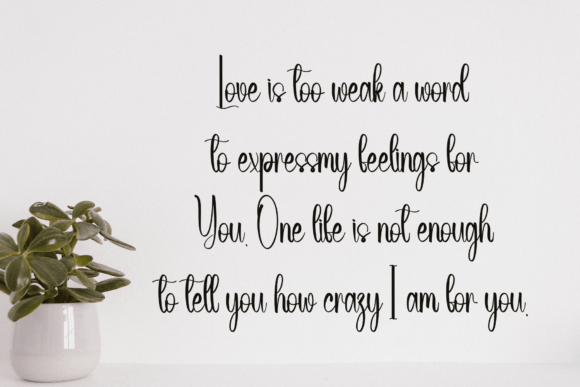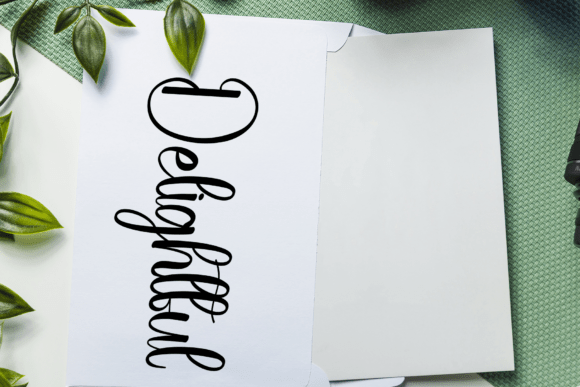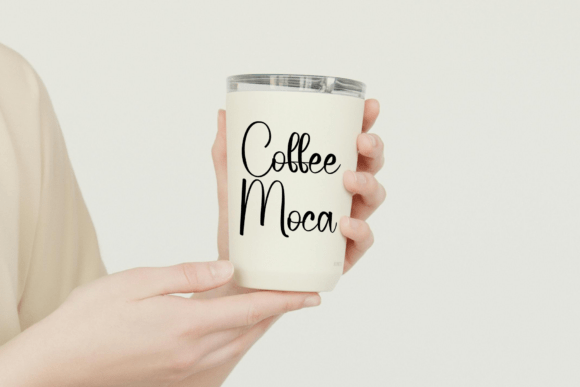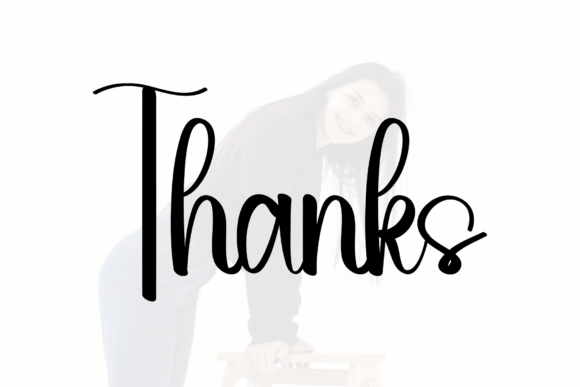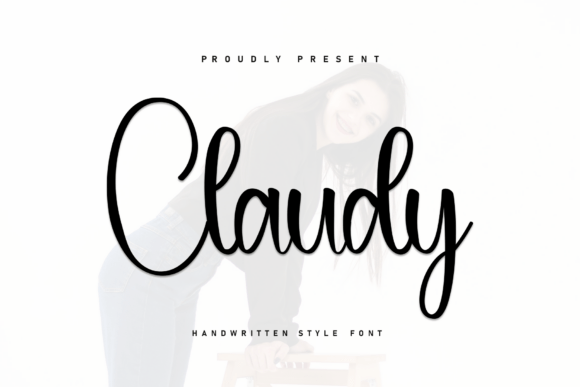
Introducing Claudy Font: The Epitome of Elegance and Sophistication
In the world of typography, few fonts manage to strike a balance between elegance and approachability. Claudy Font, however, is a remarkable exception. This sophisticated and highly fluid handwritten script embodies effortless elegance, making it an ideal choice for designers and crafters looking to add a touch of luxury to their creative projects.
The Characteristics of Claudy Font
Claudy is defined by its tall, sweeping ascenders and a delicate, fine-point pen aesthetic. This unique combination gives the font its distinctive look and feel, setting it apart from more traditional typefaces. The elongated character height and smooth, rhythmic flow of Claudy contribute to its refined and handcrafted feel, making it perfect for applications where a sense of high-end quality is desired.
Ideal Applications for Claudy Font
Given its exceptional design and aesthetic appeal, Claudy Font is particularly well-suited for a variety of applications. Some of the most notable uses include:
- Boutique Branding: For businesses that aim to convey a sense of exclusivity and high-end quality, Claudy offers a typographic solution that is both sophisticated and memorable.
- High-End Fashion Editorial Headers: The font’s elegant and fluid lines make it a natural fit for fashion editorials, adding a touch of glamour and sophistication to any layout.
- Personalized Signature Logos: Claudy’s unique blend of professionalism and warmth makes it an excellent choice for personal branding, allowing individuals to create a distinctive and stylish visual identity.
- Upscale Social Media Content: In the realm of social media, where visual appeal is paramount, Claudy can help elevate a brand’s online presence, making its content stand out with a refined and luxurious aesthetic.
The Benefits of Using Claudy Font
The advantages of incorporating Claudy Font into your design projects are numerous. Some of the key benefits include:
- Effortless Elegance: Claudy brings an instant sense of sophistication and elegance to any project, making it ideal for designers aiming to create a high-end look.
- Versatility: Despite its specific aesthetic, Claudy is surprisingly versatile, capable of being used in a wide range of creative contexts, from digital media to print.
- Memorability: The unique character of Claudy ensures that it leaves a lasting impression, making it an effective tool for branding and advertising.
To make the most of Claudy Font, consider the following tips:
- Pair with Complementary Fonts: When using Claudy in a multi-font project, choose complementary typefaces that enhance its elegance without overpowering it.
- Experiment with Color: The luxurious feel of Claudy can be further emphasized through the strategic use of color. Consider metallic or pastel shades that complement its fine-point pen aesthetic.
- Pay Attention to Spacing: Given its elongated character height, ensure that Claudy has sufficient spacing to maintain its refined appearance and prevent a cluttered look.
Claudy Font is a remarkable addition to the world of typography, offering a perfect blend of professional grace and personal warmth. Its unique design and versatile application make it an exceptional choice for designers and crafters seeking to imbue their projects with a sense of modern luxury and effortless elegance. Whether you’re working on boutique branding, fashion editorials, or upscale social media content, Claudy is sure to deliver a refined and handcrafted feel that elevates your creative work to new heights.